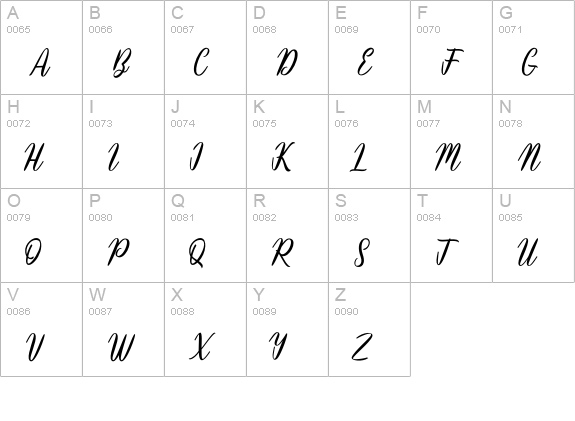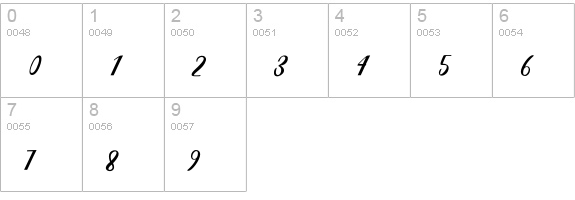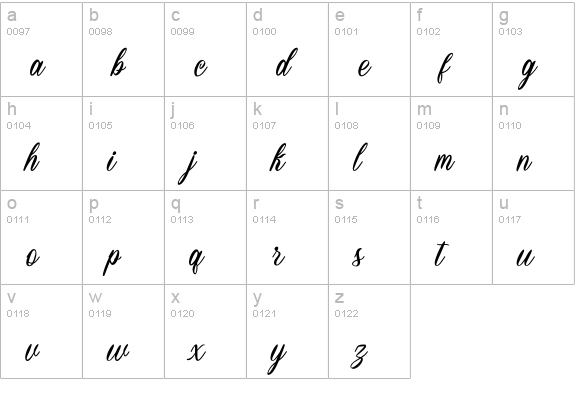
Brights Newton Font Details
Brights Newton is a free for personal use font in the Script category, designed by jackgridden. It has been downloaded 29 times and is available for Windows, Mac and Linux.
Brights Newton font is a modern and elegant typeface that exudes sophistication and style. Its sleek lines and bold strokes make it perfect for a wide range of design projects, from branding to invitations to editorial layouts. This versatile font strikes the perfect balance between professionalism and creativity, making it a must-have for any designer looking to make a statement.